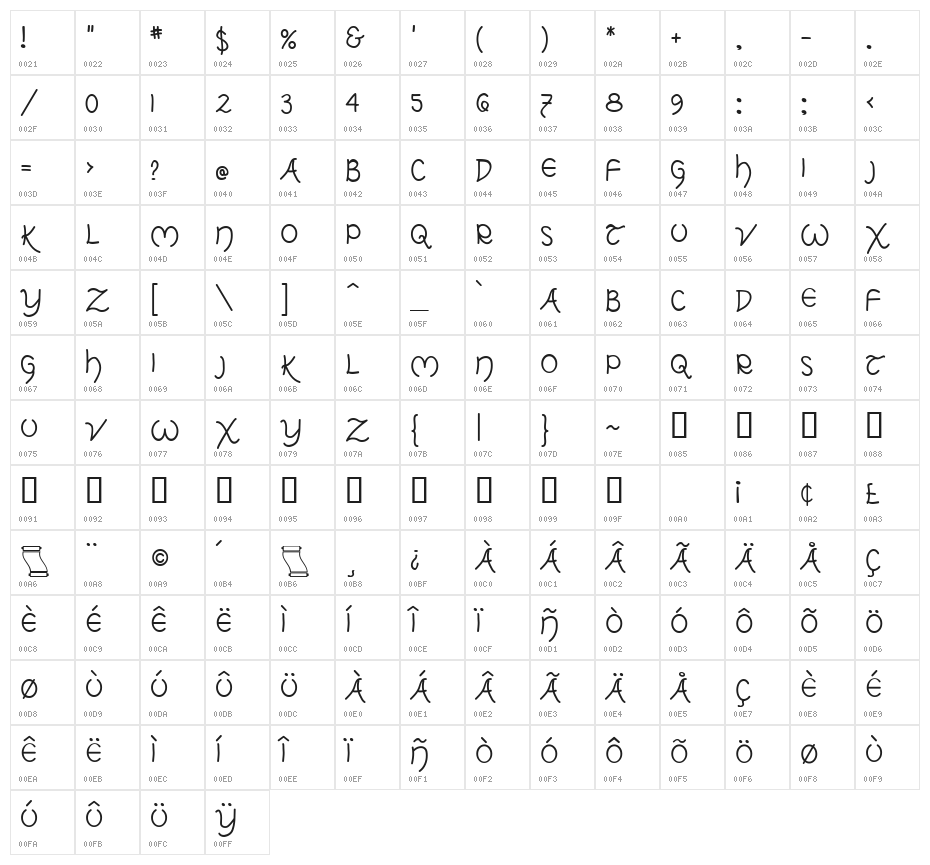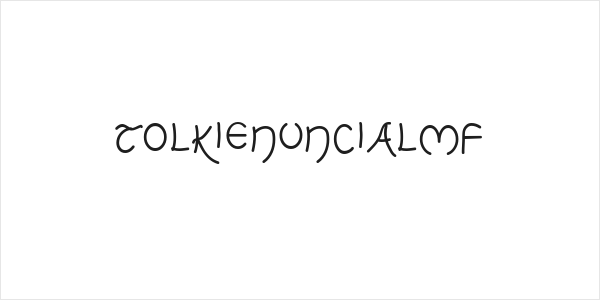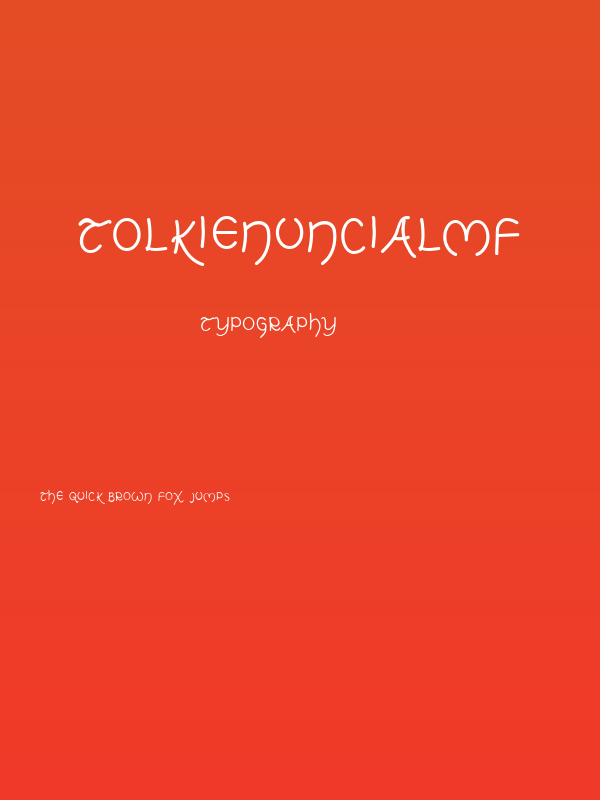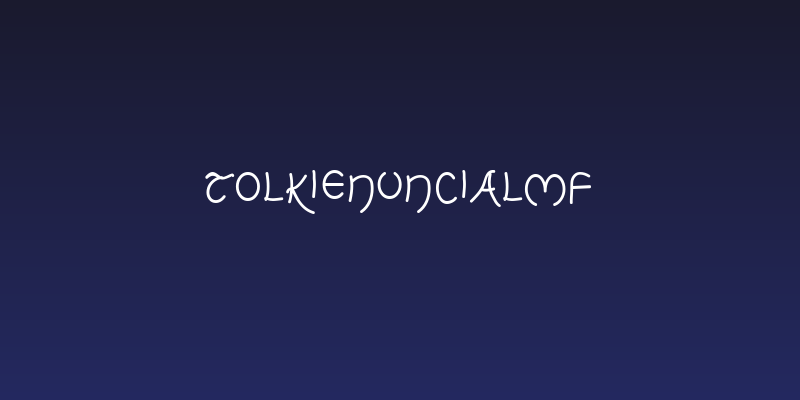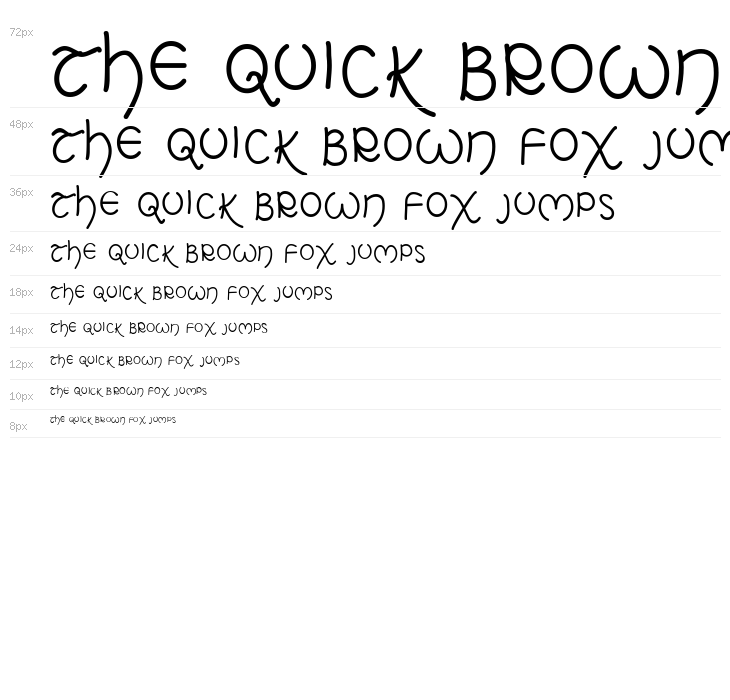
TolkienUncialMF Font
TolkienUncialMF Description
This font features a distinctive, whimsical style reminiscent of ancient scripts, with a modern twist. The characters are designed with a unique blend of curves and angles, giving them an elegant yet playful appearance. The uppercase letters have a slightly larger presence, while the lowercase letters maintain a consistent flow. Numbers and special characters are crafted to match the overall aesthetic, ensuring a cohesive look across all text elements. The font's design is both artistic and readable, making it suitable for a variety of creative applications.
| Use Case | Headlines, Logos, Artistic designs |
| Proposed Projects | Ideal for fantasy-themed projects, book covers, posters, and artistic designs. |